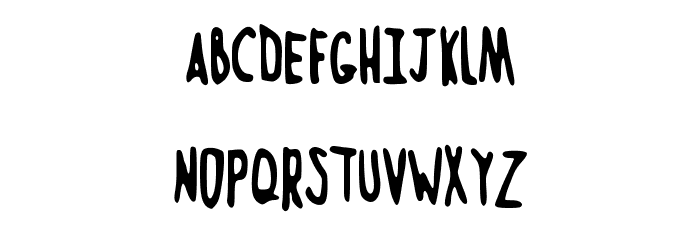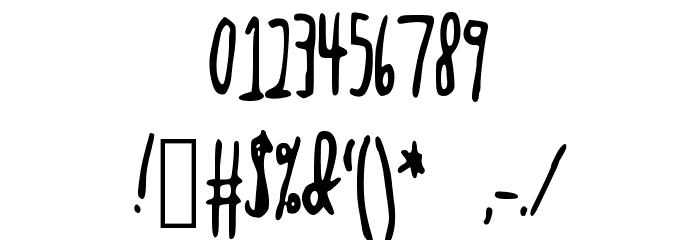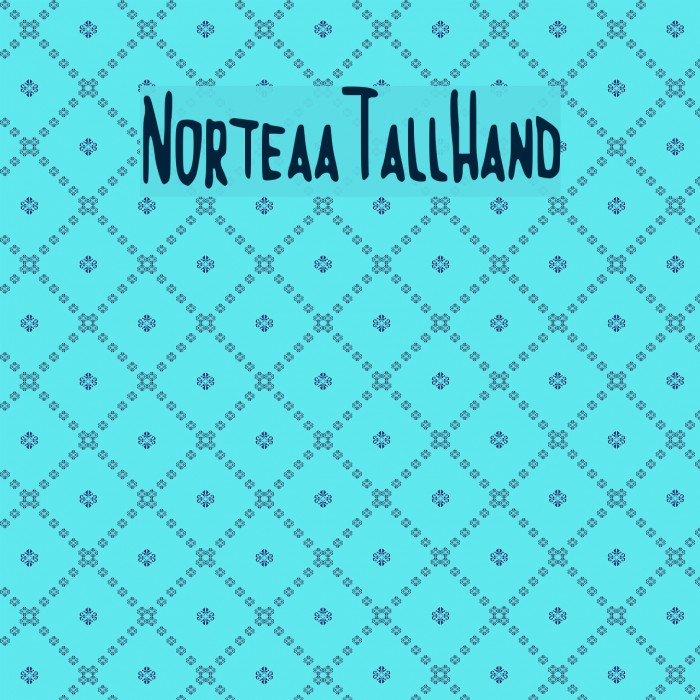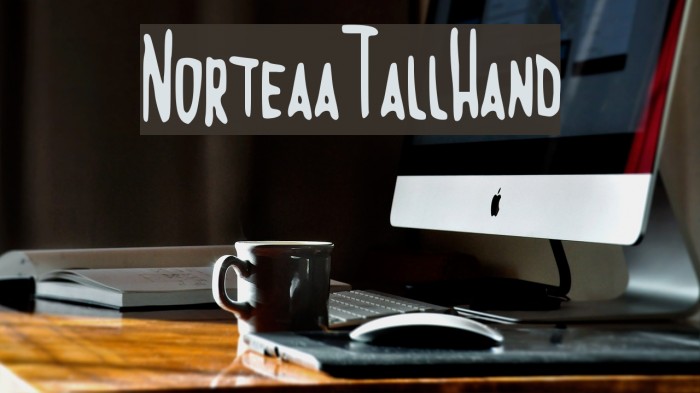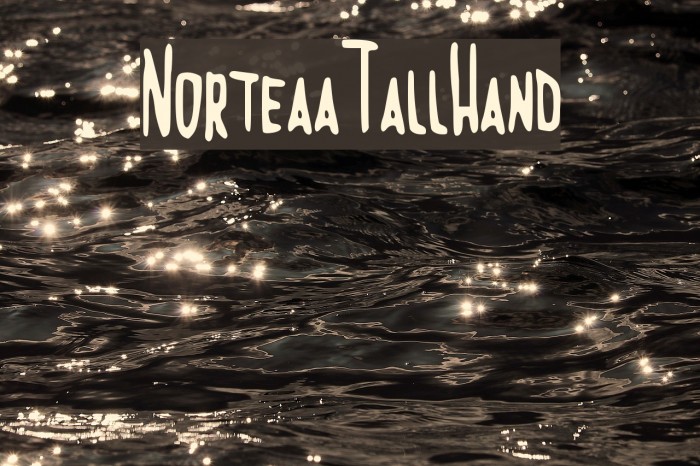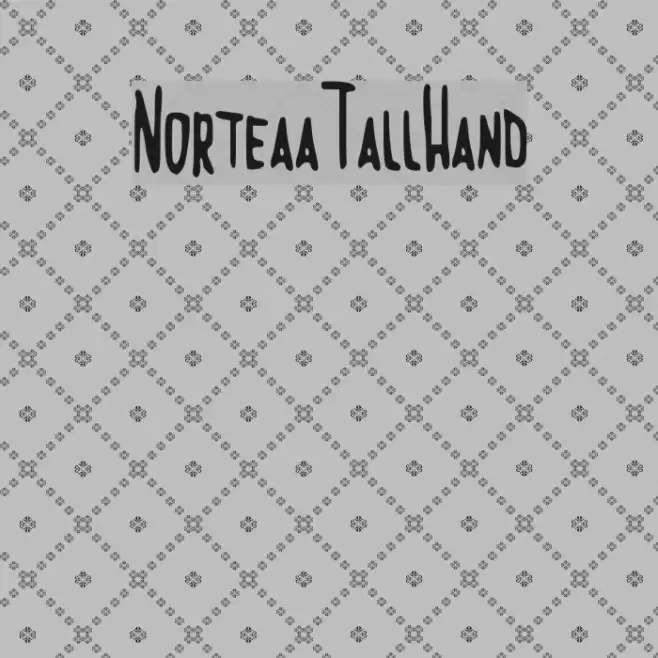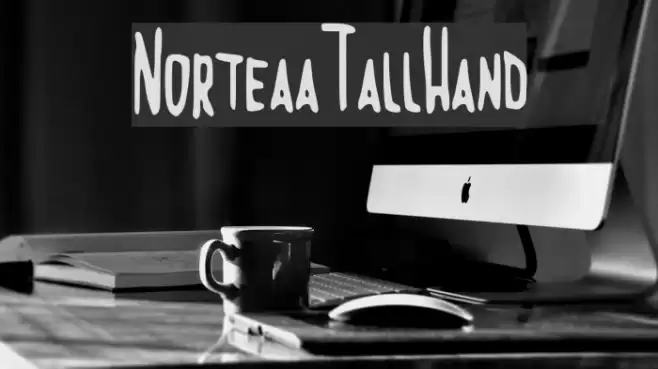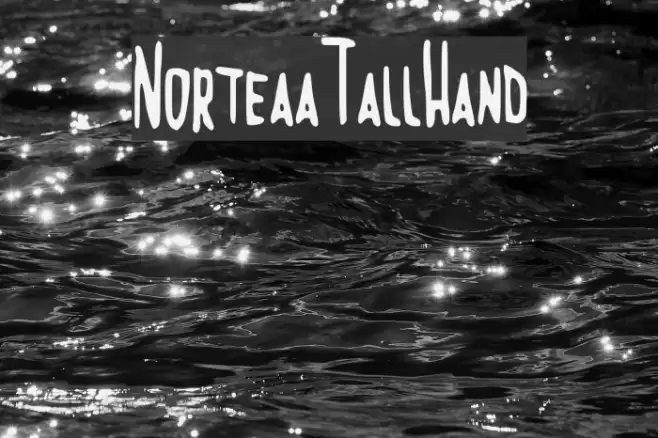
NorteaaTallHand Font
This font features a playful and casual handwritten style, characterized by its tall and slightly irregular letterforms. The strokes are uneven, giving it a natural and organic feel, reminiscent of hand-drawn lettering. The uppercase and lowercase letters maintain a consistent style, with a slight slant that adds to its informal charm. The numerals and special characters follow the same aesthetic, ensuring a cohesive look across all text. This font's unique personality makes it stand out, offering a friendly and approachable vibe.
A playful, tall handwritten font with a casual and organic feel.
- Proposed Projects: Ideal for greeting cards, children's books, playful branding, and social media graphics.
- Overall Style: Casual
- Use Case: Logos, Headlines, Informal text